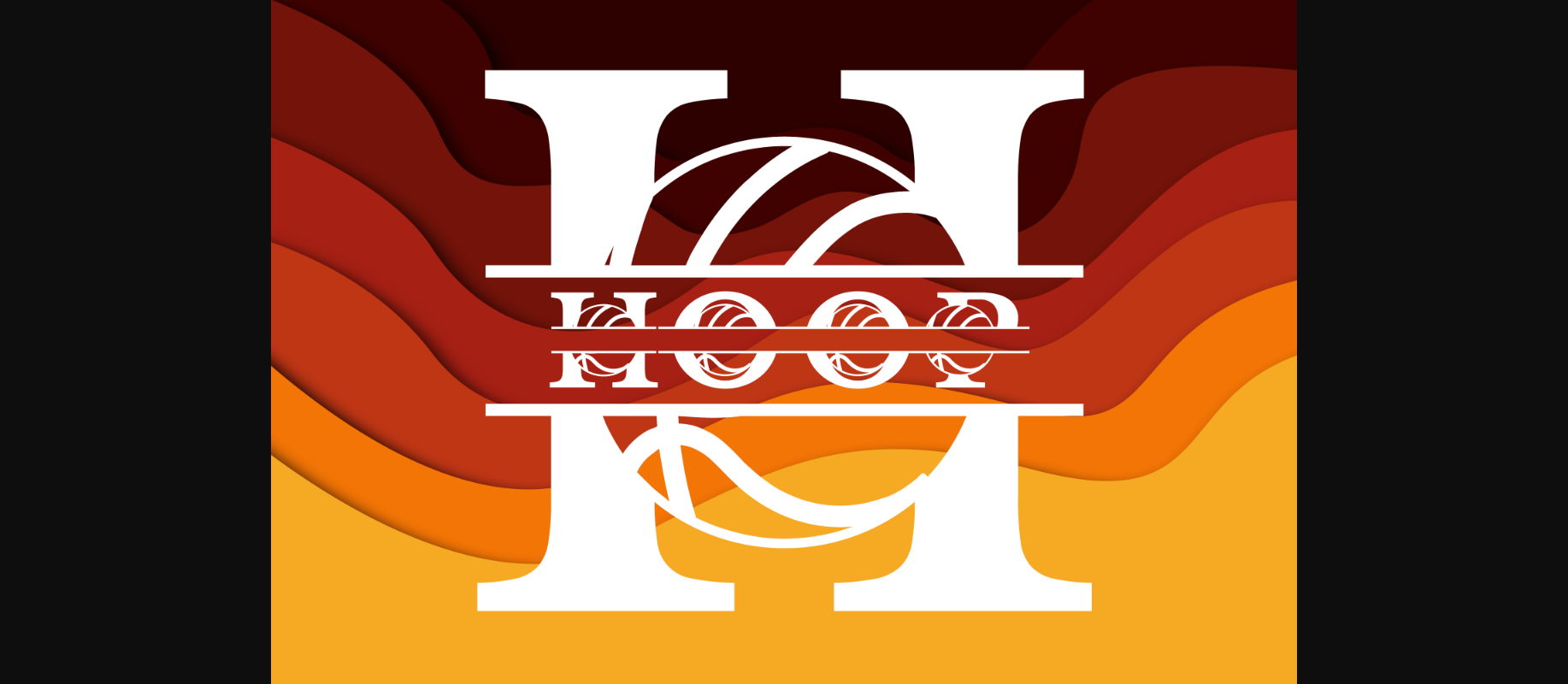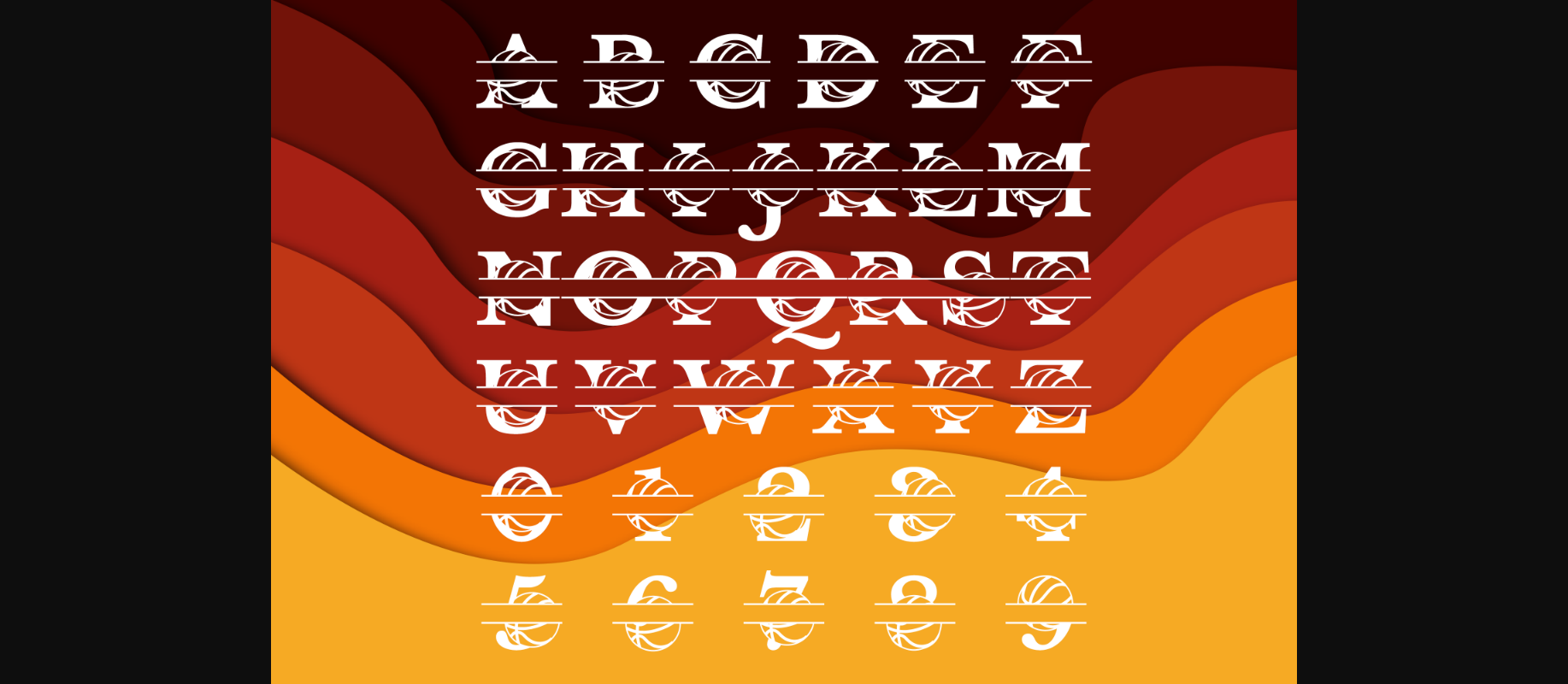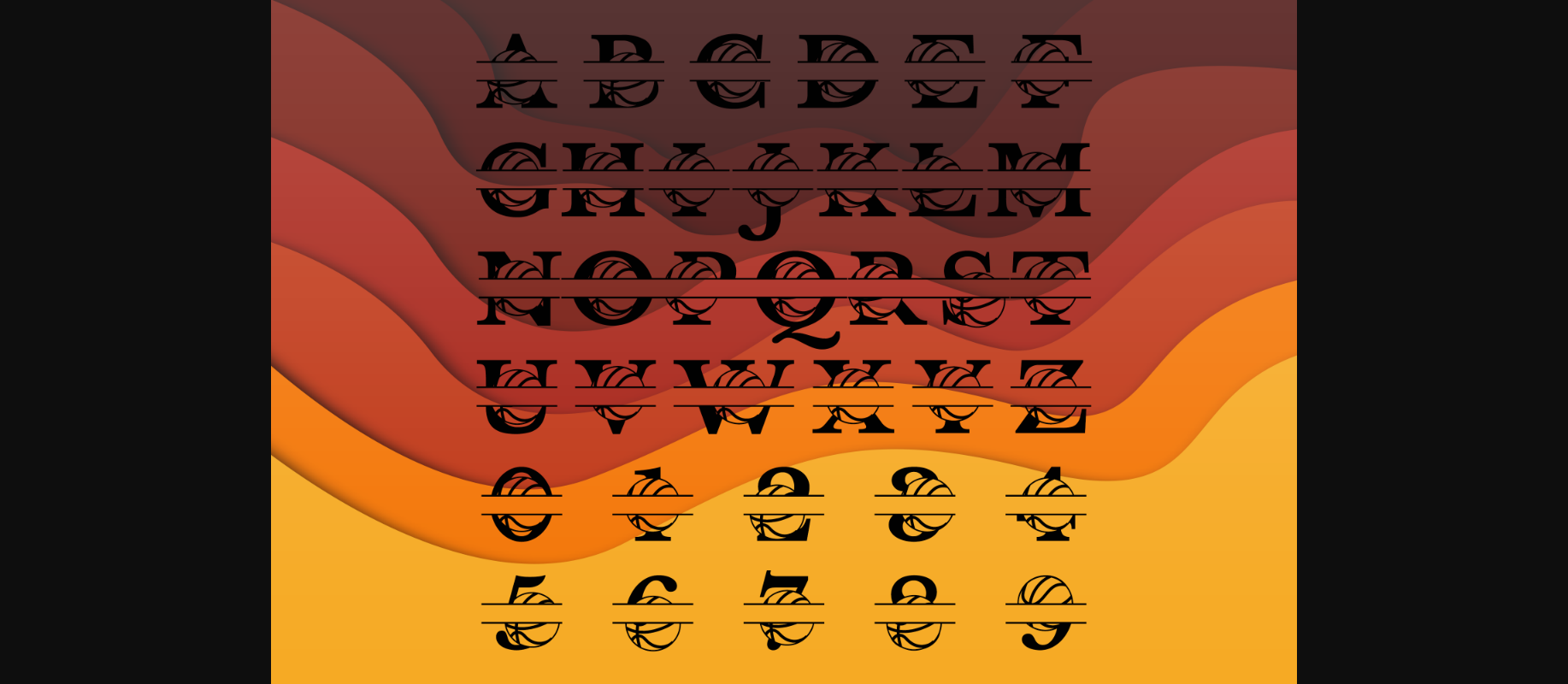
Hoop Font
About Hoop Font
Hoop is an incredibly cool font. It is ideal for your sports-related design ideas. Simple but with a strong visual effect, this font will instantly make your creation more appealing than any others.